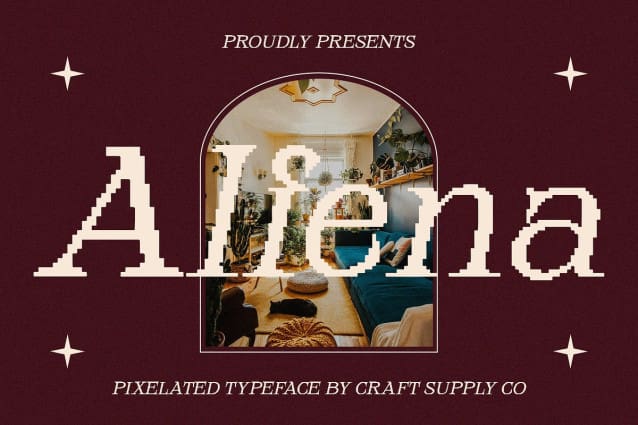
Alfena Pixel Font
Alfena Pixel Font is a modern serif font with a beautiful impression and pixel effect that combines traditional elements with a unique digital touch. The elegant and beautiful serif form offers a classic look, while the pixel effect adds an intriguing contemporary dimension.
With its classic serif form and pixel effect, Alfena Pixel is perfect for designs aiming to highlight the blend of classic elegance and digital innovation. This font ensures your projects stand out with a combination of sophistication and modern flair, making it suitable for various applications requiring a classy and distinctive aesthetic.
Alfena Pixel enhances designs such as wedding invitations and luxury branding, providing a refined and artistic appeal. Its pixel effect adds a contemporary twist, ensuring your designs convey sophistication and creativity while maintaining a timeless elegance.
Versatile and visually striking, Alfena Pixel adapts seamlessly to various creative projects, including art posters and promotional materials. Whether used in digital or print media, this font provides a sophisticated and modern appeal that enhances the overall impact of your designs.